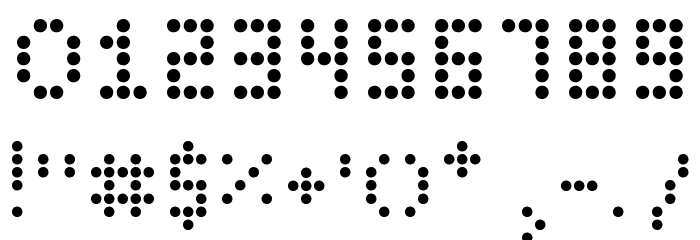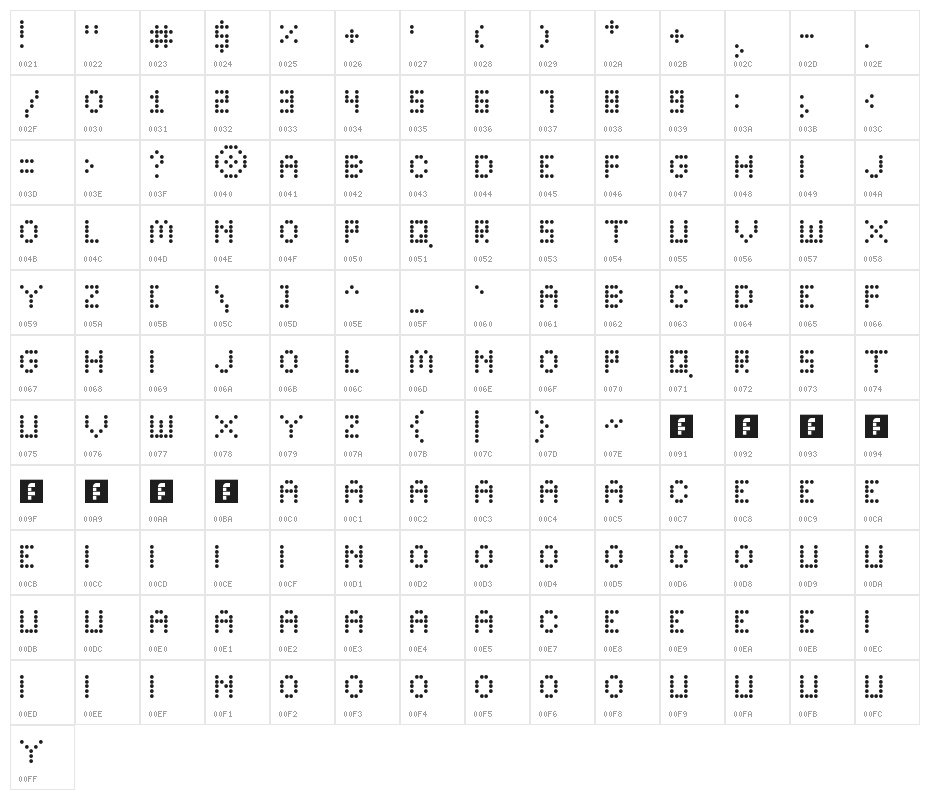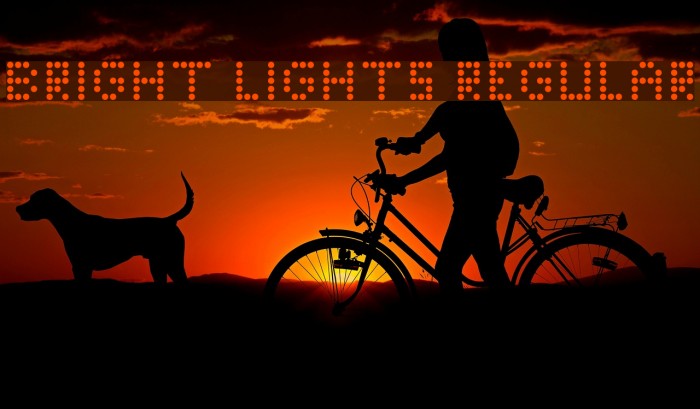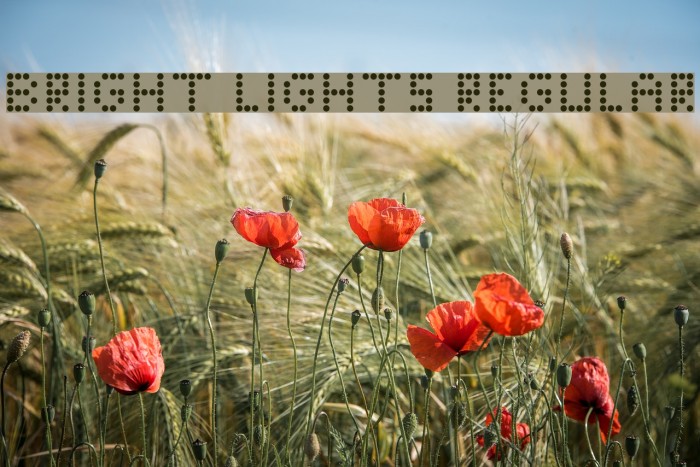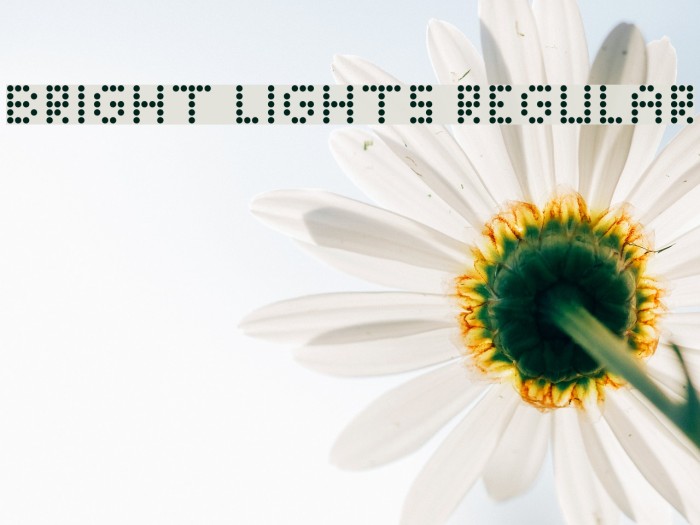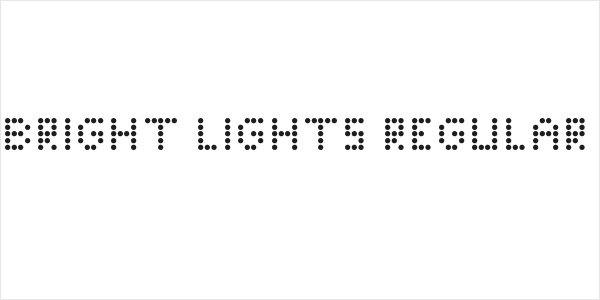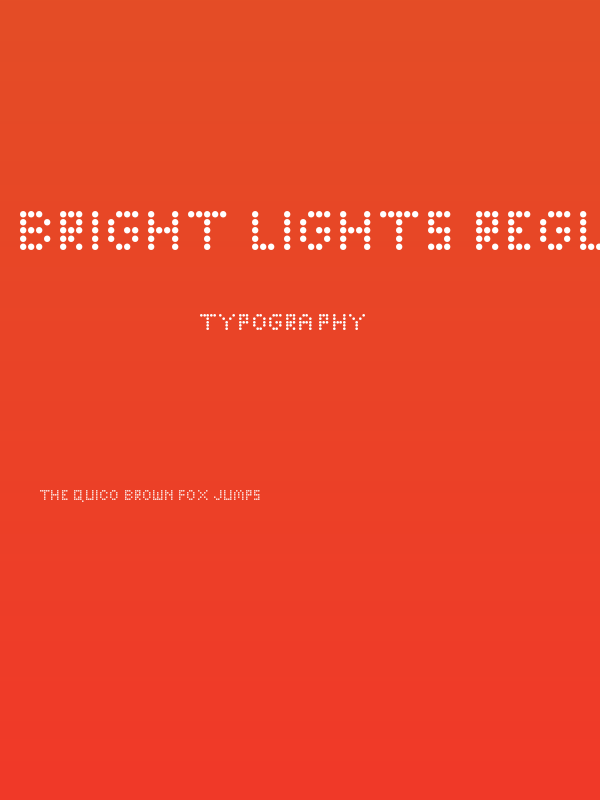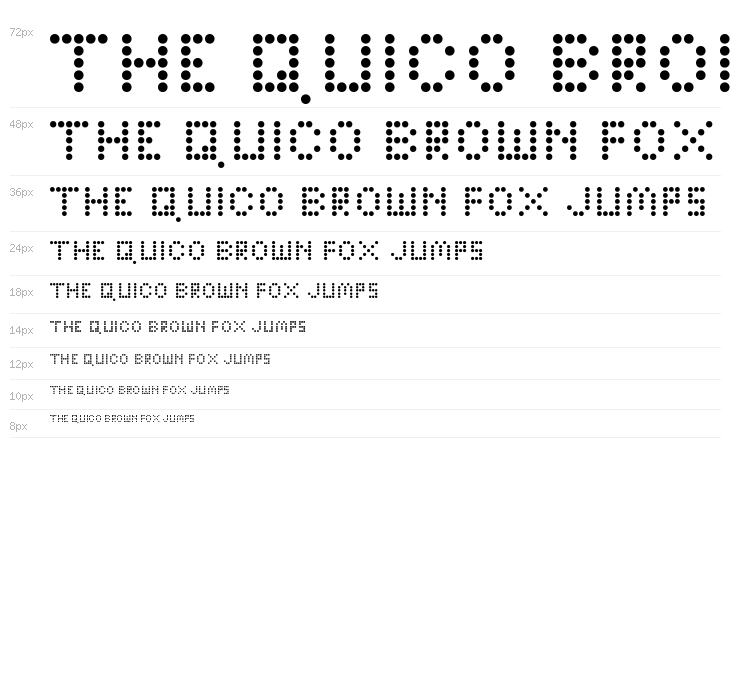
Bright Lights Regular Font
Bright Lights Regular Description
This font features a unique dot matrix design, where each character is composed of a series of evenly spaced dots. The style is reminiscent of digital displays or LED signs, giving it a modern and technological feel. The characters are uniform in height and width, maintaining a consistent and structured appearance. This font is particularly eye-catching and can be used to convey a sense of innovation and futurism. The design is clean and minimalistic, making it suitable for various creative applications.
| Use Case | Headlines, Logos, Digital displays |
| Proposed Projects | Ideal for digital displays, tech-themed designs, futuristic branding, and innovative product packaging. |